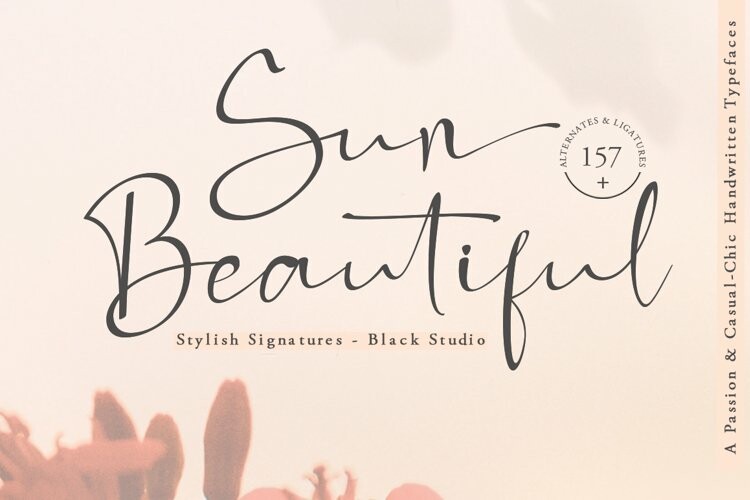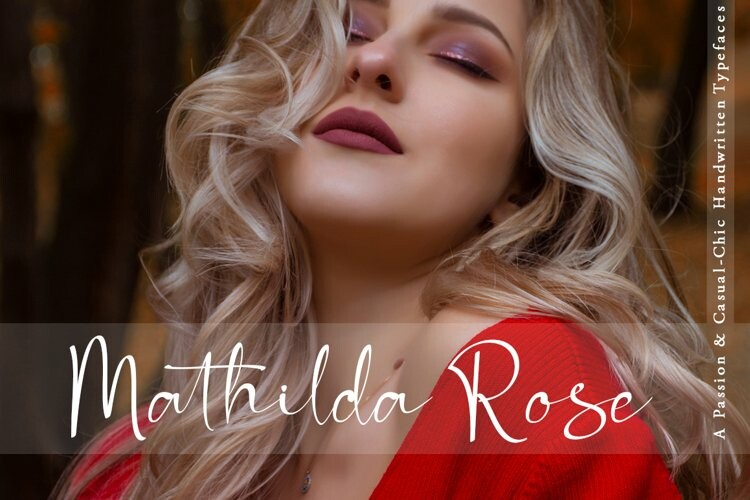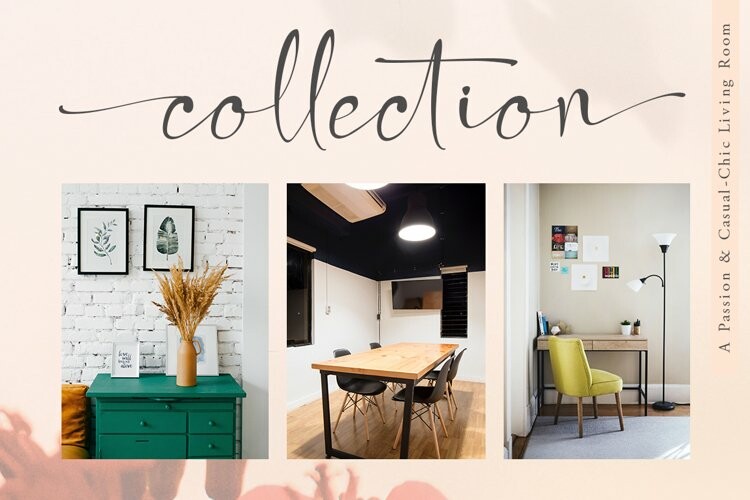
Sun Beautiful Font
Sun Beautiful FontThanks for checking out Sun Beautiful! A very fun yet elegant Signature font with lots of energy, it lets you create beautiful handcrafted typography in an instant. With extra curves & twists, Sun Beautiful is guaranteed to make your text stand out – perfect for logos, printed quotes, invitations, cards, product packaging, headers, weddings and anything else you can imagine.
What’s really awesome is that Sun Beautiful comes with a full set of lowercase alternatives, which allow you to create more authentic custom-feel text.
This type has become the work of true love, making it as easy and fun as possible.